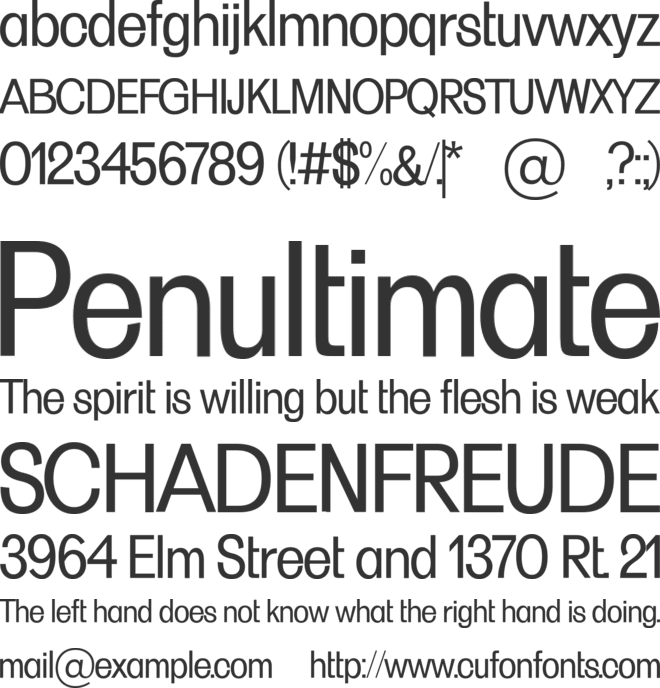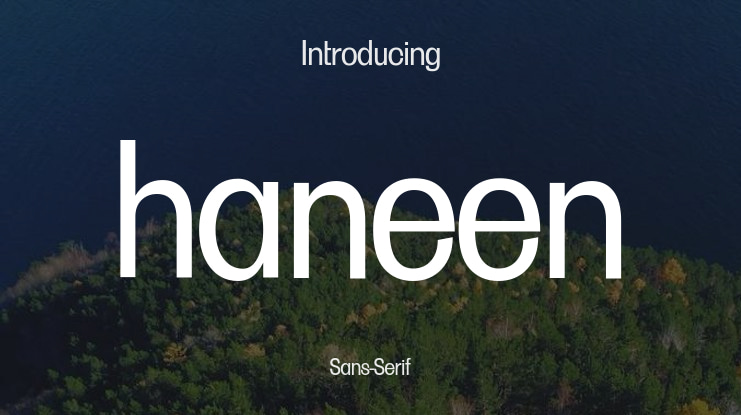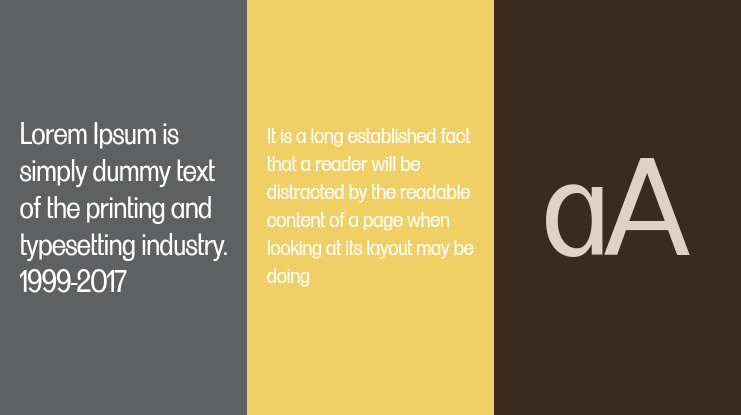
haneen Font Family
🎨 Font Name: HANEEN by Minimalist Art Studio
🎨 Font description: Haneen is a bold sans serif with multilingual support—perfect for modern branding, editorial layouts, and minimalist packaging.
✨ This is a LITE version (A–Z, lowercase, numbers, punctuation) to give you a taste of the full family.